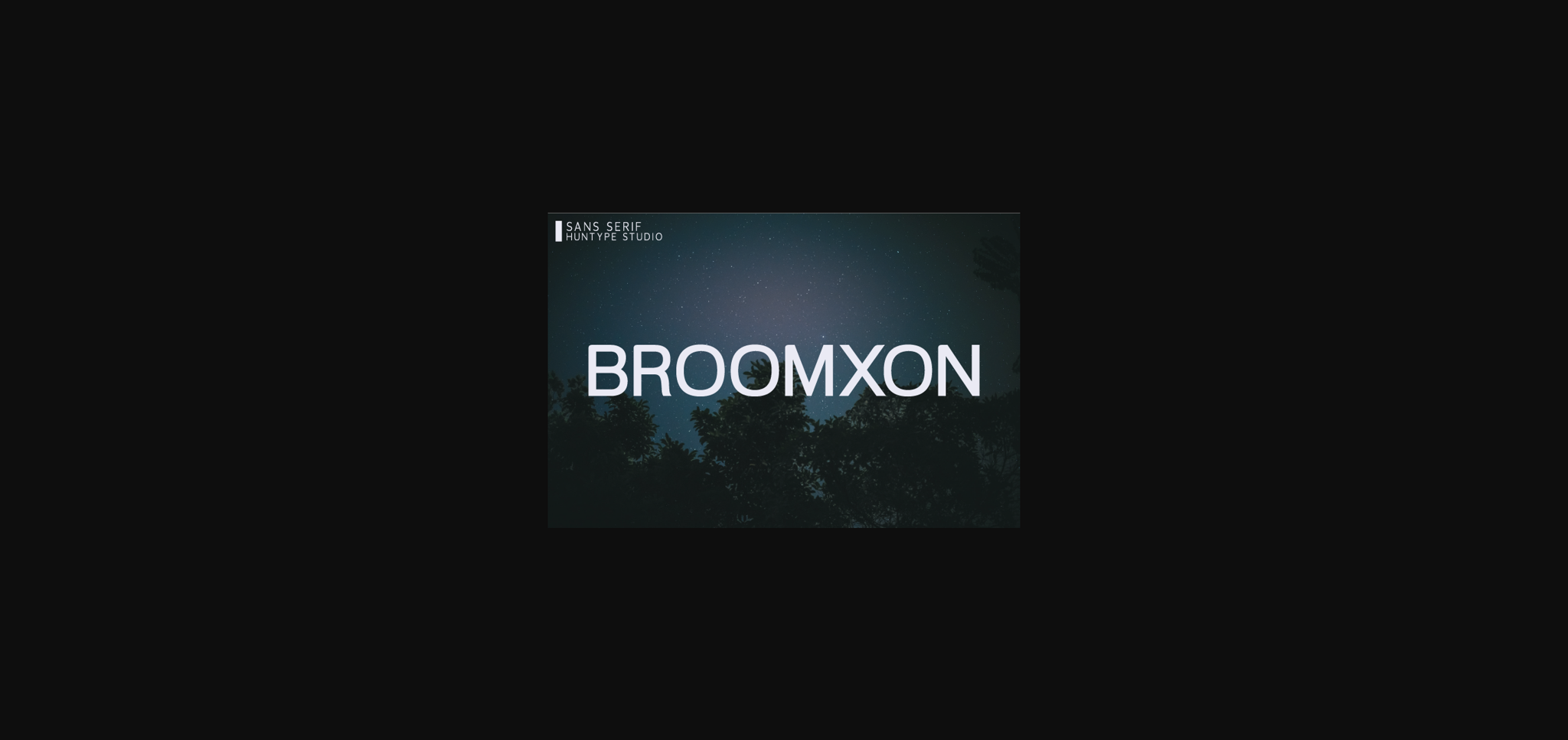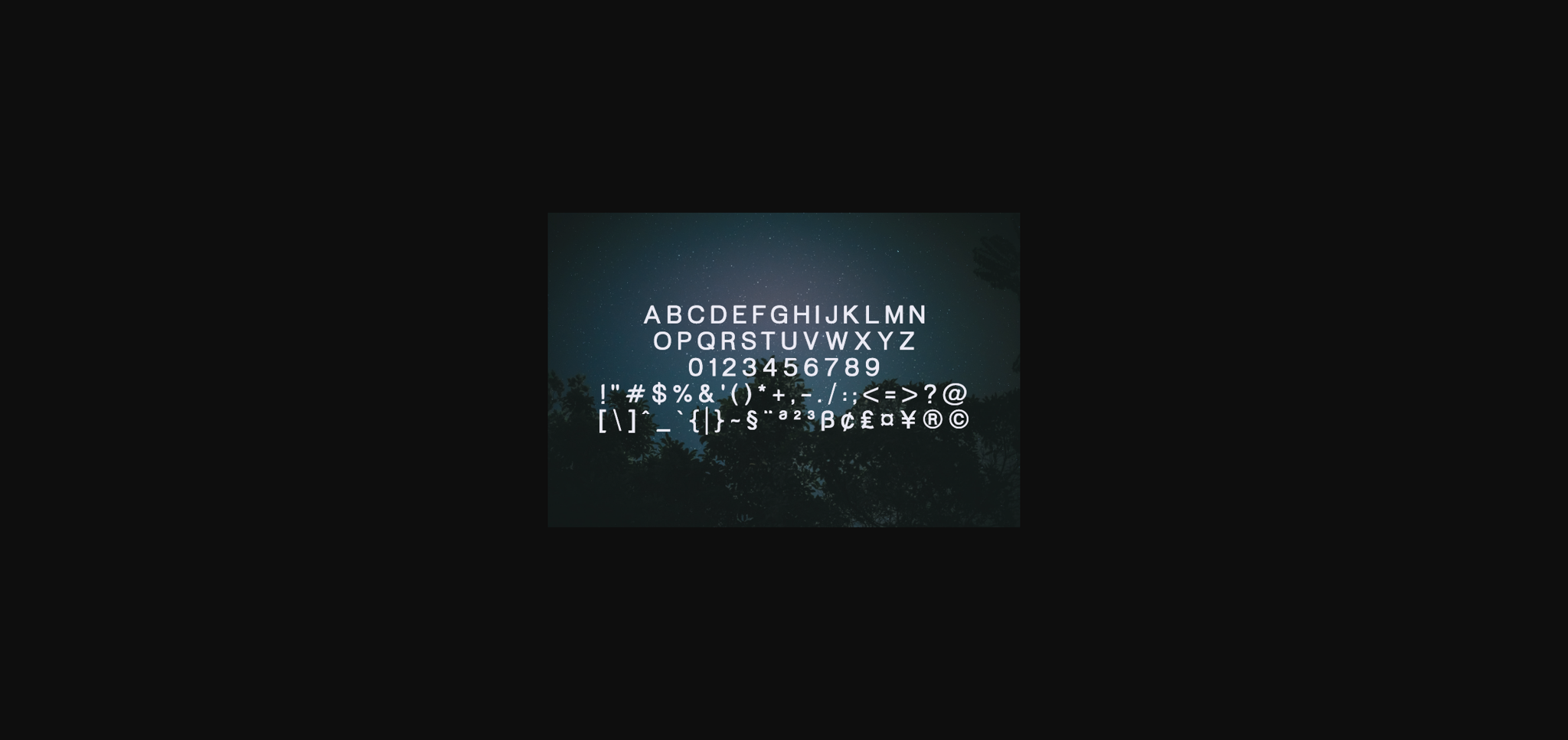
Broomxon Font
About Broomxon Font
Broomxon is a modern and powerful sans serif. Broomxon will look outstanding in any context, whether it’s being used on busy backgrounds or as a standalone headline!